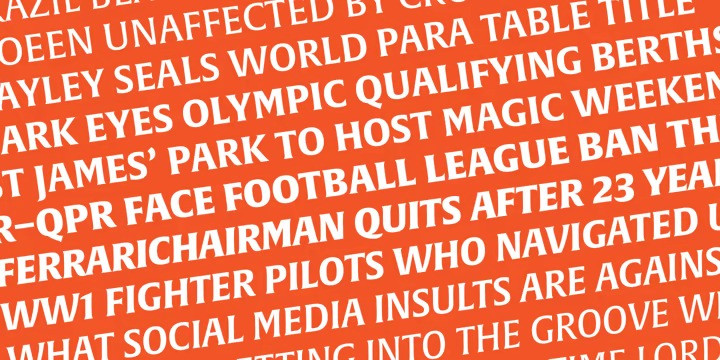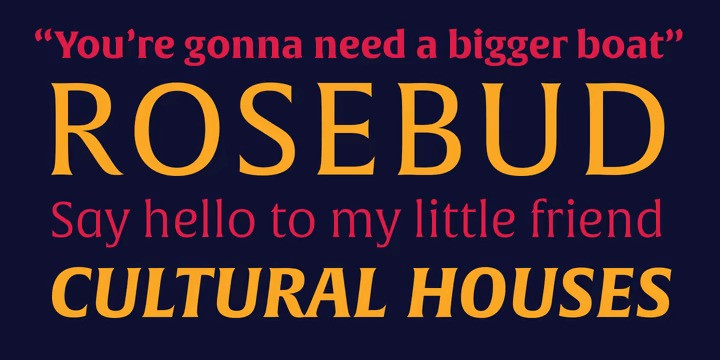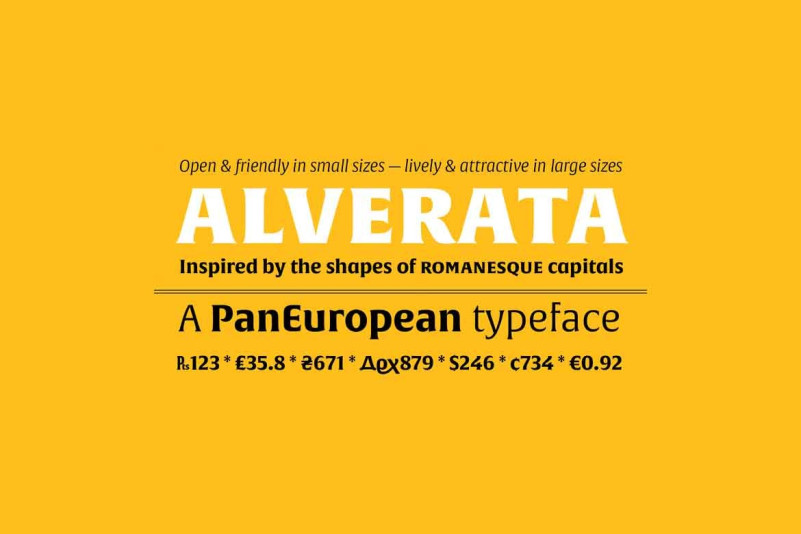
Alverata Font
Alverata Font is a twenty-first-century type-face inspired by the shapes of Romanesque capitals in inscriptions of the eleventh and twelfth centuries, without being a close imitation of them. It is additionally based on the early twentieth-century model, but tweaked so as to prevent blandness and monotony. Alverata performs beautifully in both screen and on paper, delivering excellent legibility. Its letters are open and friendly in small sizes and lively and attractive in large sizes. They are robust, and show refinement in their detail. Unger’s Alverata is an extensive type family, with versions for both formal and informal applications, and with Greek and Cyrillic relatives. Alverata consists of three different fonts: Alverata, Alverata Irregular and Alverata Informal, that vary in form and width, but maintain the same spirit. The Irregular version is particularly inspired by the Insular letterforms, the uncials, and their constantly changing positioning. Alverata strikes a balance among Europe’s diversity of languages, combining contemporary typographical practices with features of medieval letterforms, from the time when Europe came into being. Visually, some written languages, such as Czech and Maltese, differ quite strongly from languages like English and German, notably because of their many accented characters. While other typefaces will show this difference, Alverata removes it. As a result, Alverata enables harmonious convergence of languages. For the development of the Greek letterforms, Unger collaborated with Gerry Leonidas (University of Reading) and Irene Vlachou (Athens), and with Tom Grace on the Cyrillic letterforms.